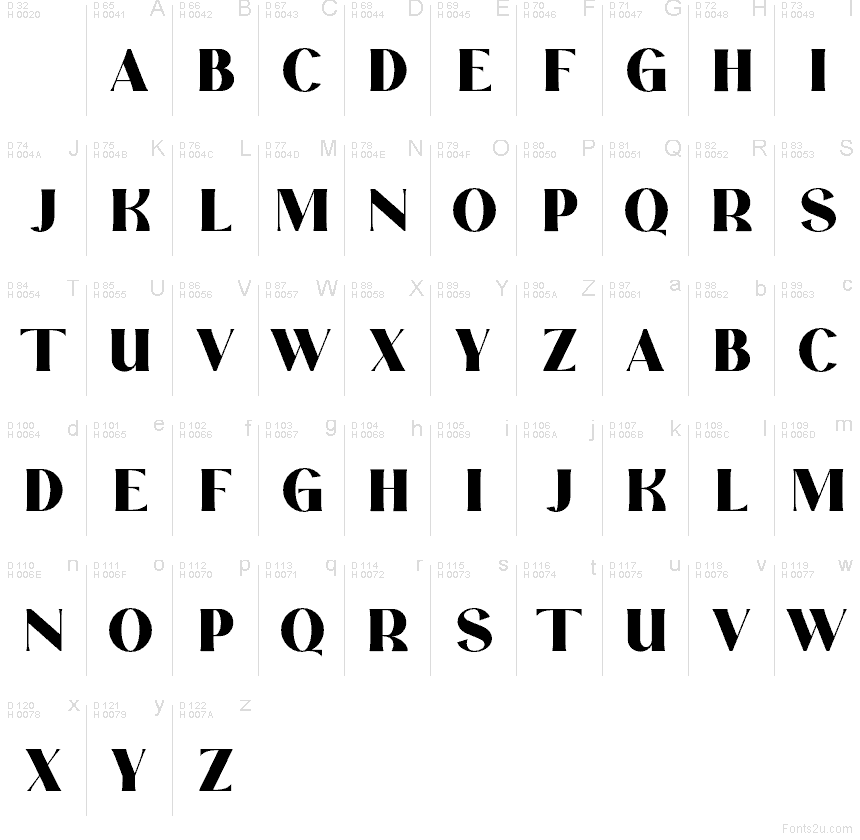
Veloura Demo Regular
Veloura font by VPcreativeshop is a free serif typeface that hits like a spotlight. Broad, inky strokes slam into razor-thin cuts, giving each letter a runway-ready stance that feels bold, elegant, and a little bit dangerous. The sharp angles and compressed shapes create a luxurious tension, so even a single word looks like a logo.
Using Veloura, you’ll get striking results for fashion branding, magazine covers, perfume or cosmetics packaging, event posters, bold invitations, and hero social media graphics. This free font thrives at large sizes where its dramatic shapes can breathe. Pair Veloura with a simple, neutral sans serif for body copy to keep layouts chic and readable.